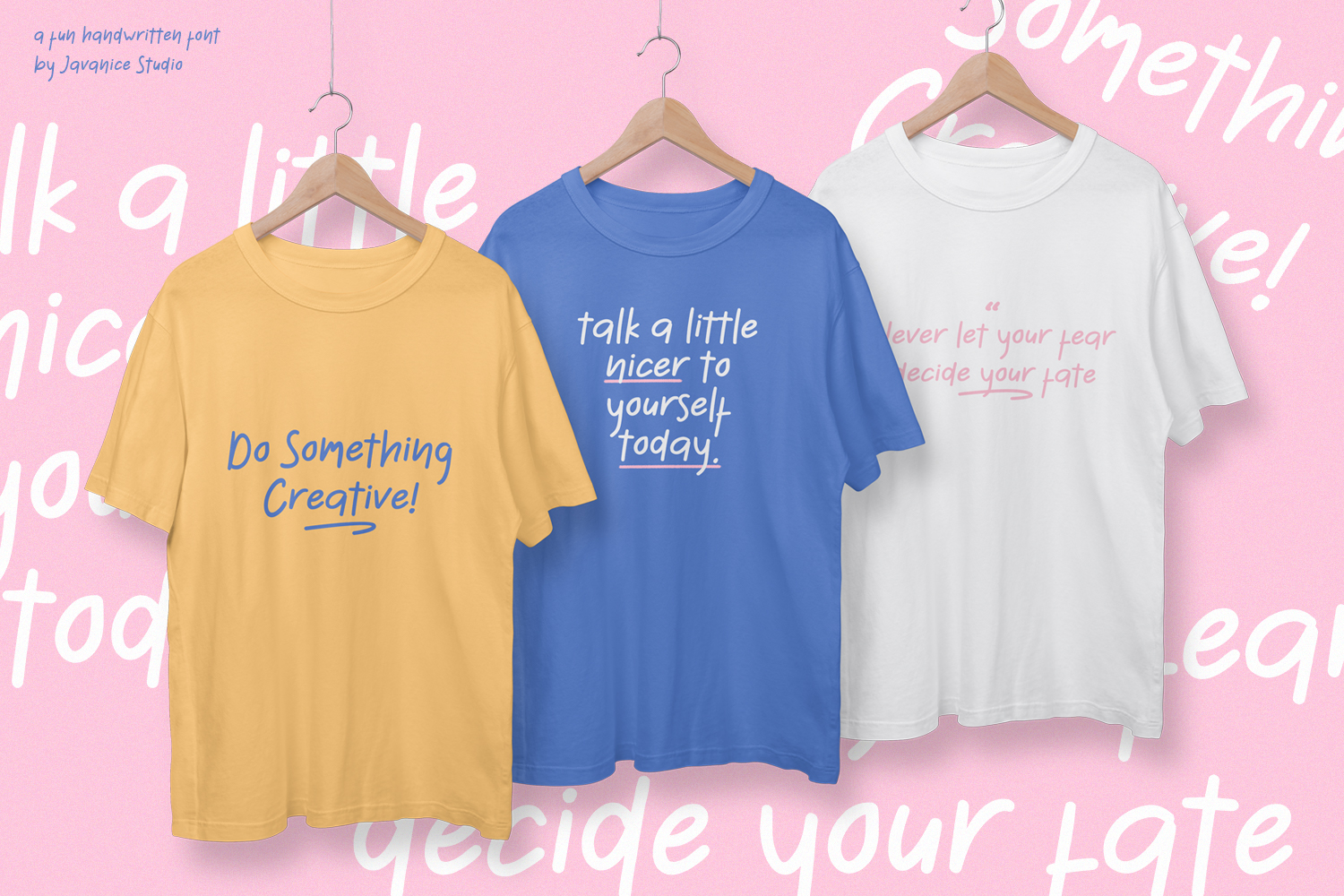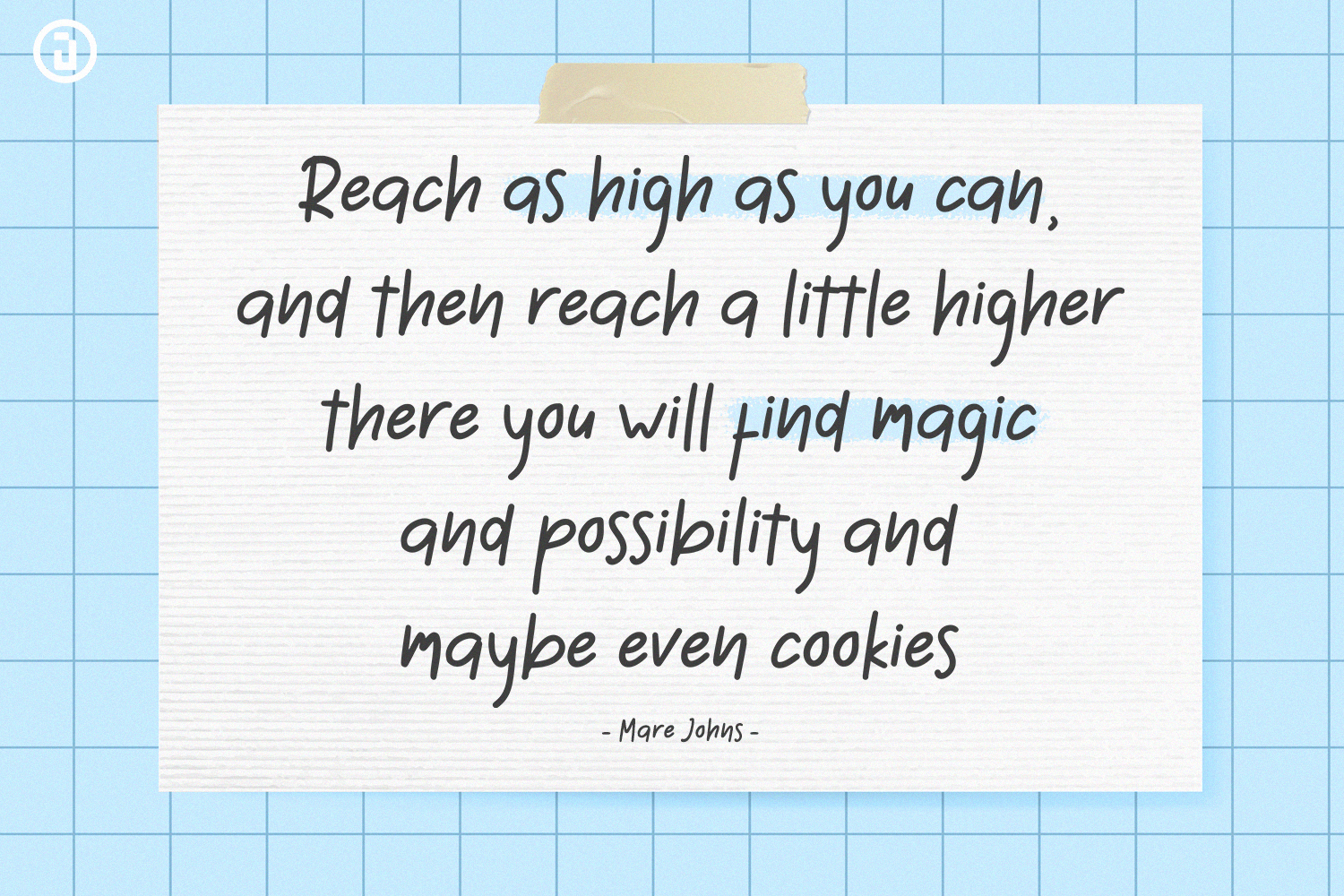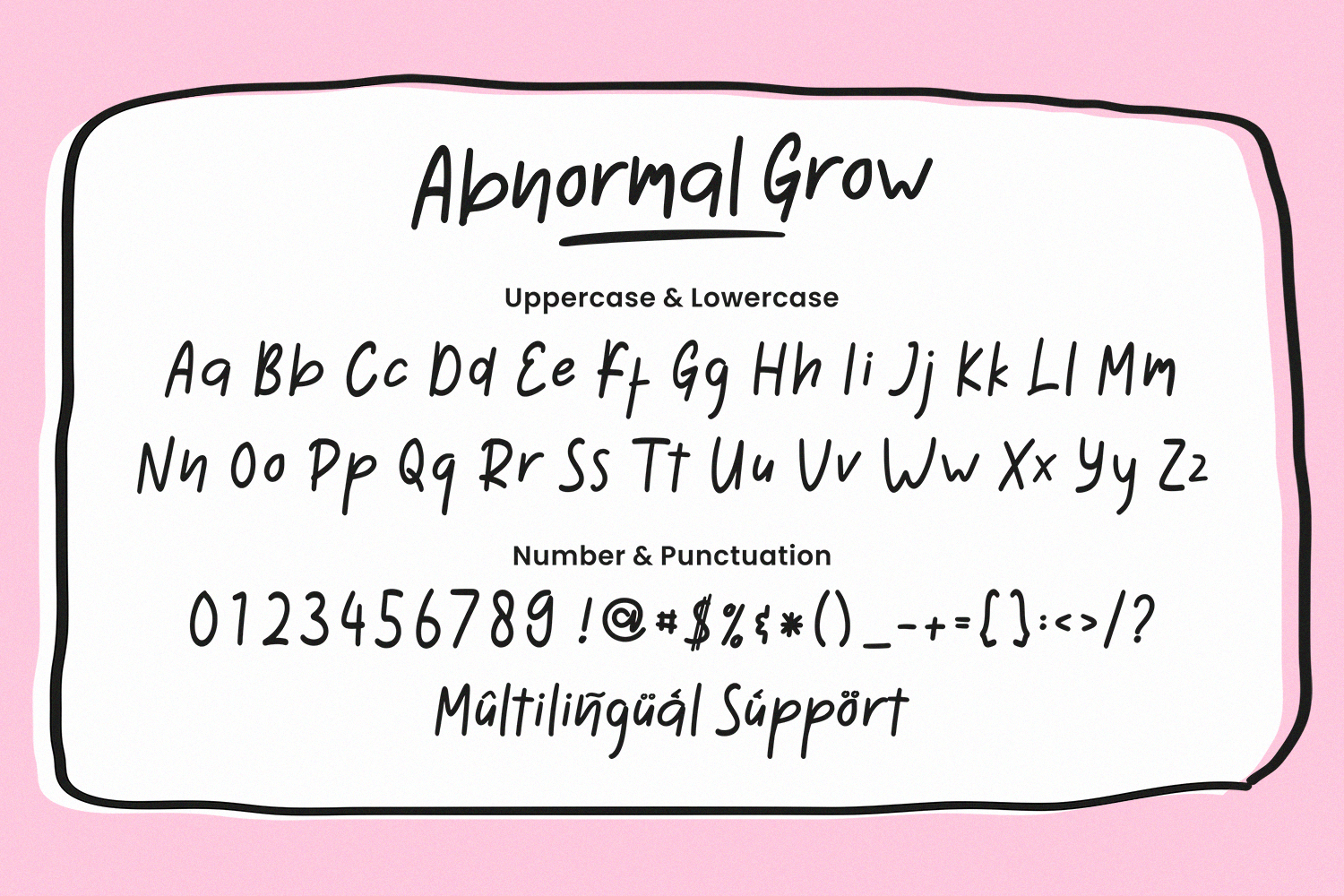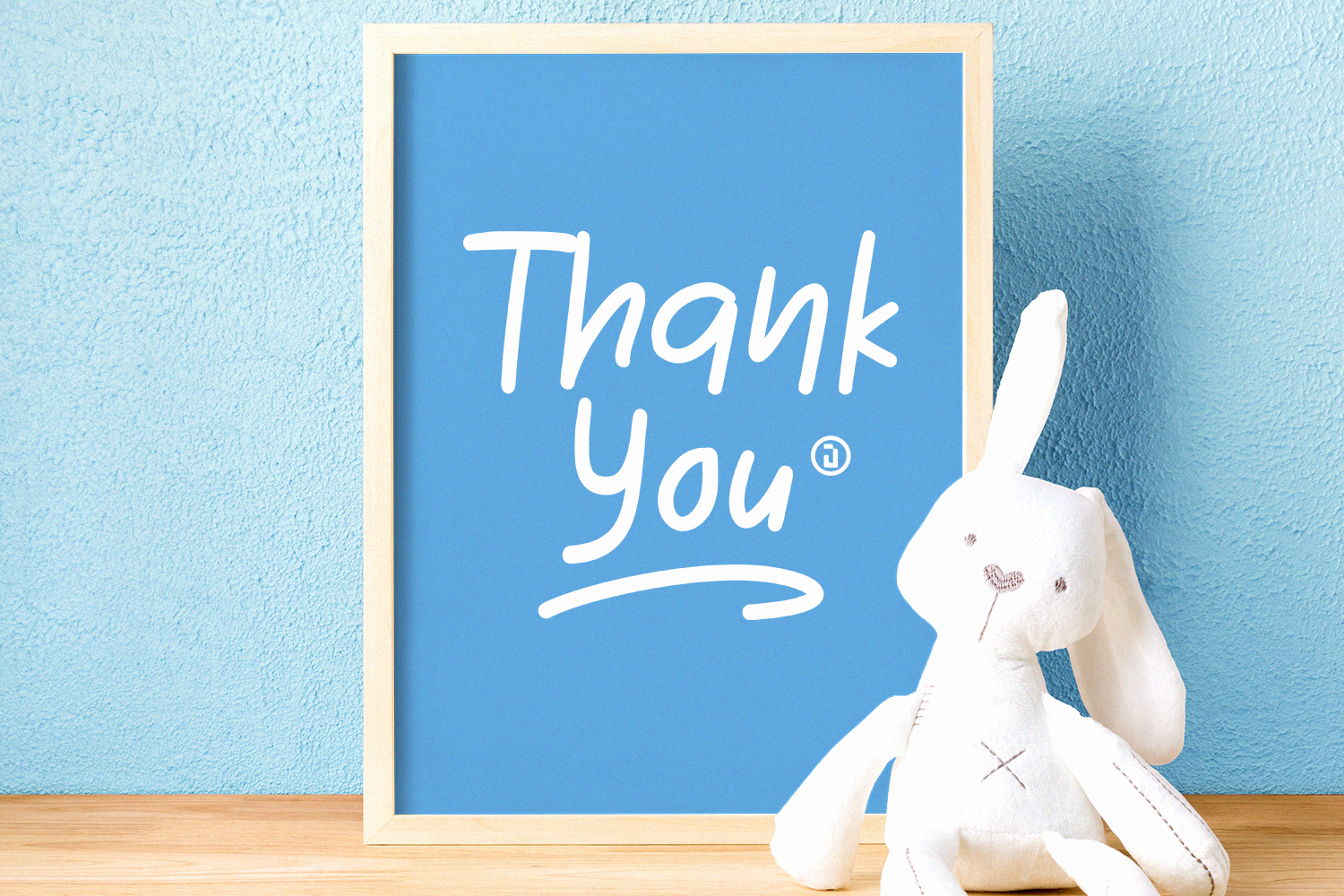
Abnormal Grow Handwritten Font
This is a handwritten font. Abnormal Grow is perfect for branding project, apparel, labels, magazines, books, greeting / wedding cards, packaging, fashion, make up, stationery, and any type of advertising purpose or just used to express words above the background.